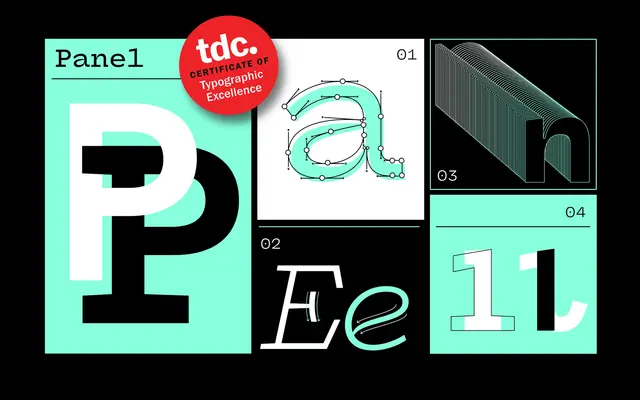
Panel Mono
A monospaced subfamiy of the Panel type system, spanning five weights with matching italics for use in technical and editorial contexts.
Panel Mono is the fixed-width arm of the broader Panel family, which also includes a proportional serif and sans-serif. Five weights from Light to Black each carry a companion italic, giving the Mono cut the same range as its sibling subfamilies. The parent Panel family received a TDC 70 Certificate of Excellence for Type Design and is available via Adobe Fonts.
Panel Mono is a monospaced subfamily within the Panel type system, which spans serif, sans-serif and mono variants; the Mono cut retains the same proportions and structure as Panel Sans but in fixed-width spacing.